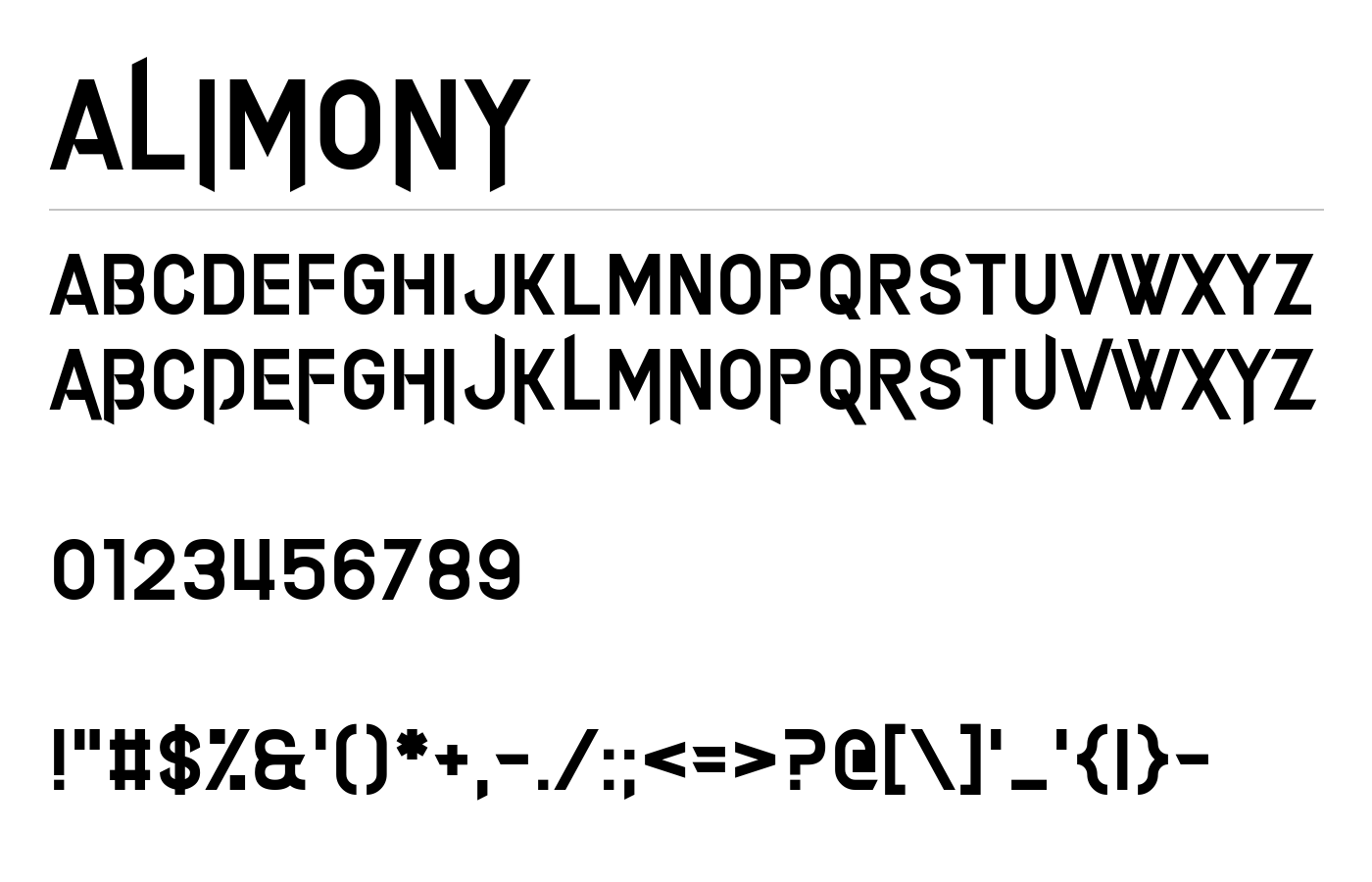
Alimony is a bold, condensed sans serif font featuring sharp, angular strokes that give it a modern and edgy look. Its unique letterforms, such as the distinctive vertical cuts on characters like A, M, and N, add a striking geometric personality perfect for attention-grabbing headlines and contemporary branding. This font works great for logos, posters, and editorial design where a strong, dynamic impact is desired.
Alimony Font
About Alimony Font